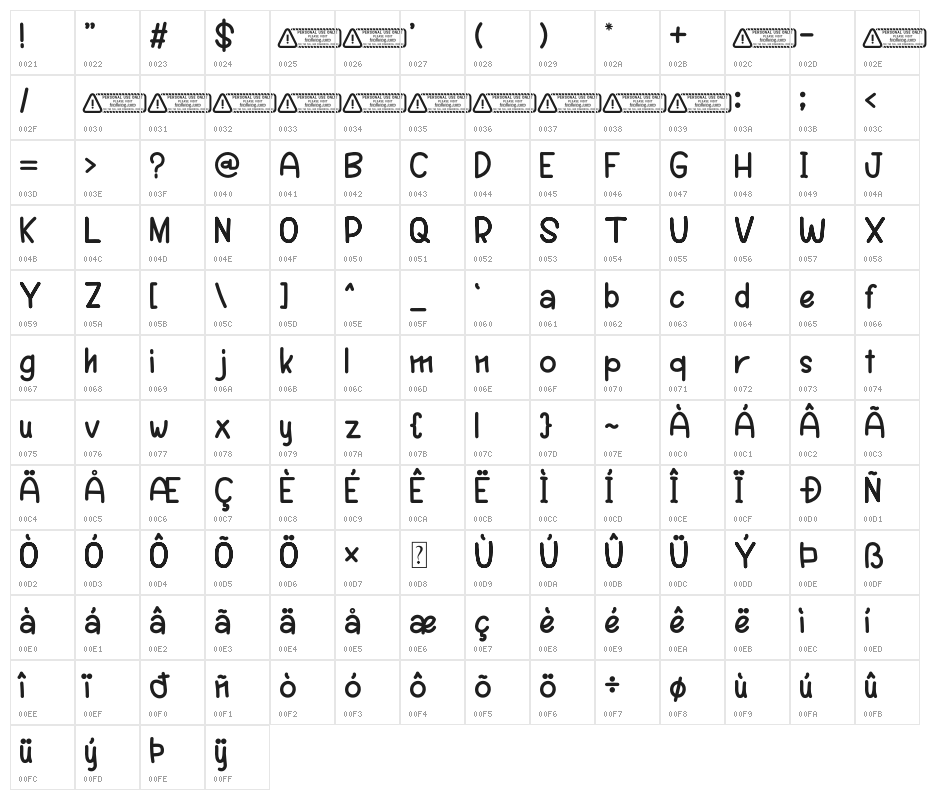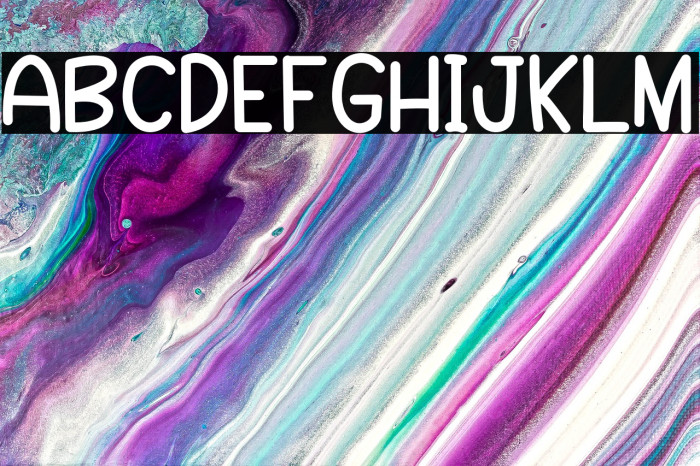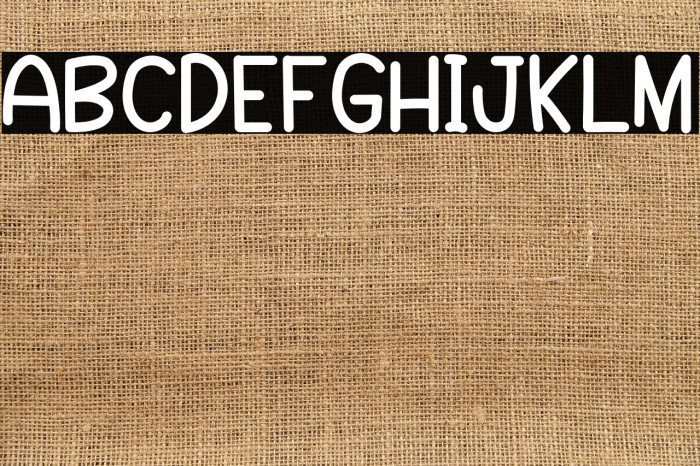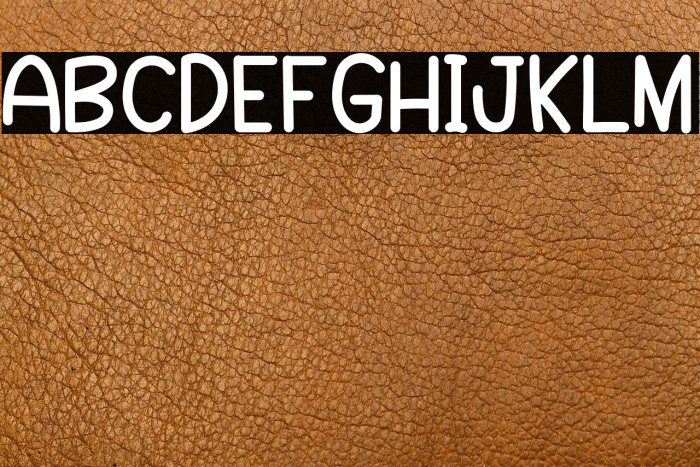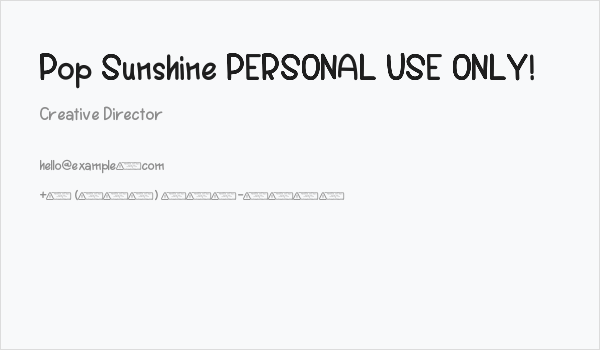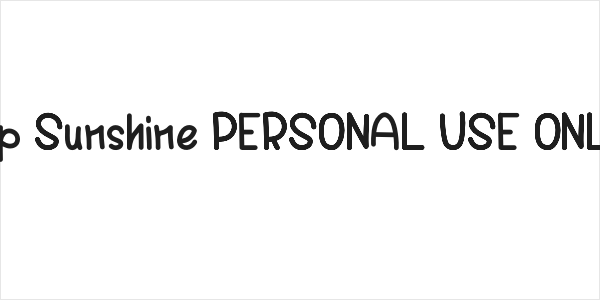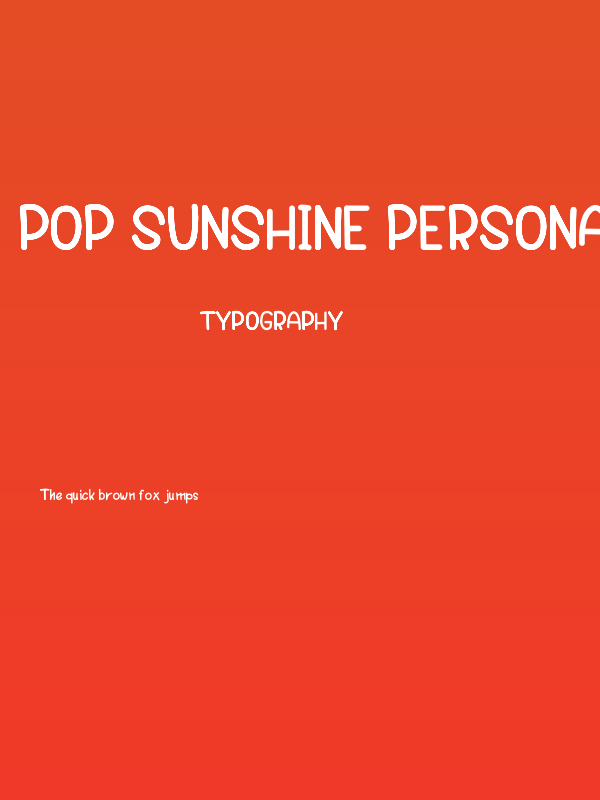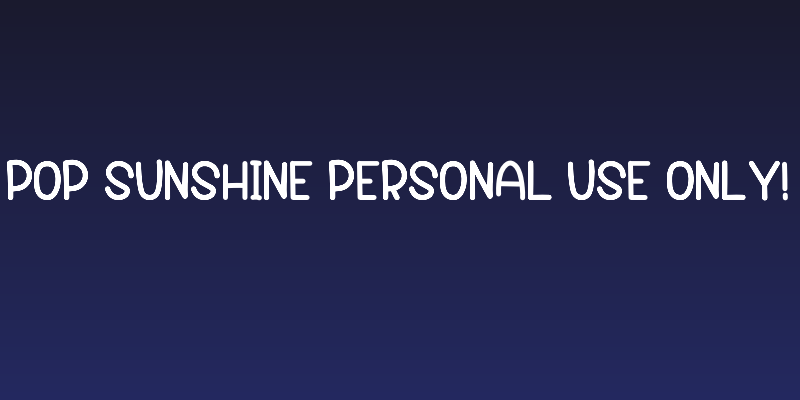
Pop Sunshine PERSONAL USE ONLY! Font
Pop Sunshine PERSONAL USE ONLY! Description
This font features a playful and rounded style, characterized by its bold and friendly appearance. The letters are slightly irregular, giving it a hand-drawn feel that adds a touch of whimsy. The uppercase and lowercase letters maintain a consistent style, with smooth curves and a slightly thick stroke that ensures readability. Special characters are included, maintaining the same playful aesthetic. This font is ideal for projects that require a fun and approachable look.
| Proposed Projects | Ideal for children's books, playful branding, greeting cards, and casual invitations. |